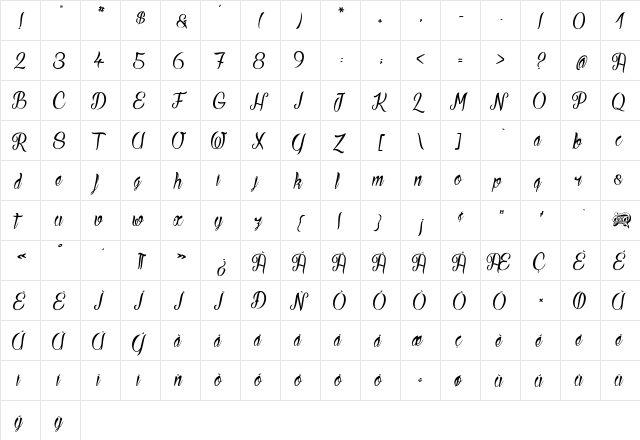
Ready to Ride Regular
| Foundry | dcoxy Medina Gregory |
| Designer | dcoxy Medina Gregory |
Design Context for Ready to Ride Typeface
Ready to Ride is a composed and adaptable typeface that performs quietly and consistently across a wide range of design contexts.